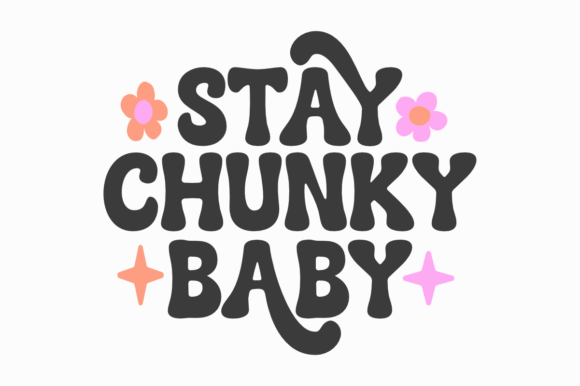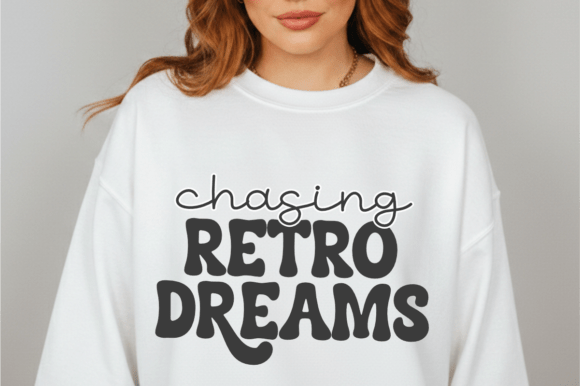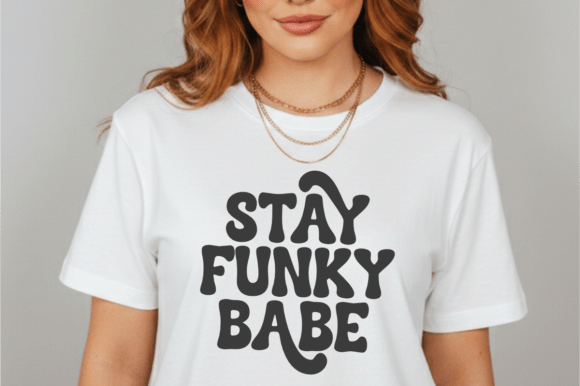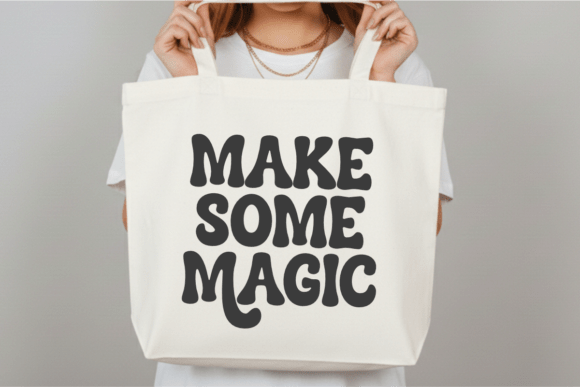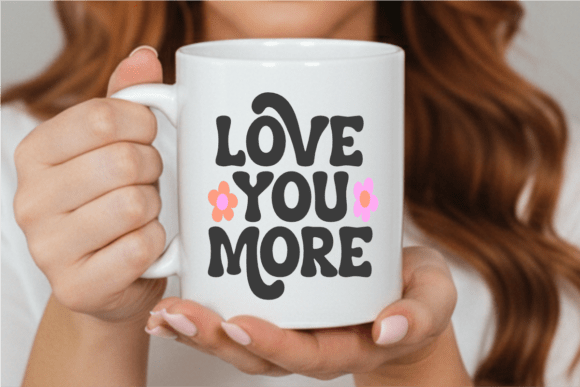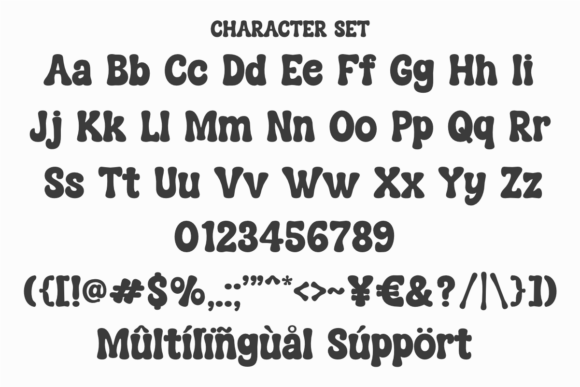
Unleash Your Creative Flair with Grove Chunky: The Ultimate Font for Artsy Projects
Are you a designer, crafter, or DIY enthusiast looking for a font that can add a touch of personality to your projects? Look no further than Grove Chunky, a sturdy and organic font that’s perfect for unleashing your creative flair. With its relaxed yet robust visual appeal, Grove Chunky is ideal for a wide range of applications, from t-shirts and tote bags to posters, key chains, and more.
The Unique Characteristics of Grove Chunky
So, what sets Grove Chunky apart from other fonts? For starters, its carved outline gives it a distinctive, hand-crafted feel that’s perfect for adding a touch of whimsy to your designs. The font’s buoyant energy is infectious, making it perfect for projects that require a bit of personality and flair. Whether you’re looking to create eye-catching headlines, add character to your branding, or wrap packaging in a distinct style, Grove Chunky is the perfect choice.
Endless Applications for Grove Chunky
One of the best things about Grove Chunky is its versatility. This font can be used for a wide range of projects, including:
- T-shirts and apparel: Add a touch of personality to your tees, hoodies, and other clothing items with Grove Chunky’s bold, chunky letters.
- Tote bags and accessories: Make your tote bags, key chains, and other accessories stand out with Grove Chunky’s unique, hand-crafted feel.
- Posters and prints: Create eye-catching posters, prints, and other visual materials with Grove Chunky’s bold, attention-grabbing letters.
- Mugs and ceramics: Add a touch of personality to your mugs, tumblers, and other ceramic items with Grove Chunky’s sturdy, organic outline.
- Branding and packaging: Use Grove Chunky to add character to your branding and packaging, setting your products apart from the competition.
- Greeting cards and stationery: Add a touch of whimsy to your greeting cards, stationery, and other paper goods with Grove Chunky’s playful, hand-crafted feel.
Why Designers and Crafters Love Grove Chunky
So, why do designers and crafters love Grove Chunky? For starters, its unique, hand-crafted feel sets it apart from more generic fonts. The font’s bold, chunky letters are perfect for creating eye-catching headlines and adding personality to your designs. Plus, Grove Chunky’s versatility makes it perfect for a wide range of applications, from apparel and accessories to packaging and branding.
Tips for Using Grove Chunky in Your Designs
Ready to unleash your creative flair with Grove Chunky? Here are a few tips for using this amazing font in your designs:
- Experiment with different colors: Grove Chunky looks great in a wide range of colors, from bold and bright to muted and pastel.
- Play with texture: Add an extra layer of depth to your designs by combining Grove Chunky with different textures and patterns.
- Mix and match: Don’t be afraid to combine Grove Chunky with other fonts and design elements to create a unique, eye-catching look.
- Keep it simple: Sometimes, less is more. Use Grove Chunky on its own to create a bold, attention-grabbing headline or logo.
In conclusion, Grove Chunky is the ultimate font for designers, crafters, and DIY enthusiasts who want to add a touch of personality to their projects. With its unique, hand-crafted feel and versatile applications, Grove Chunky is perfect for a wide range of projects, from apparel and accessories to packaging and branding. So why wait? Unleash your creative flair with Grove Chunky today and see the difference it can make in your designs!